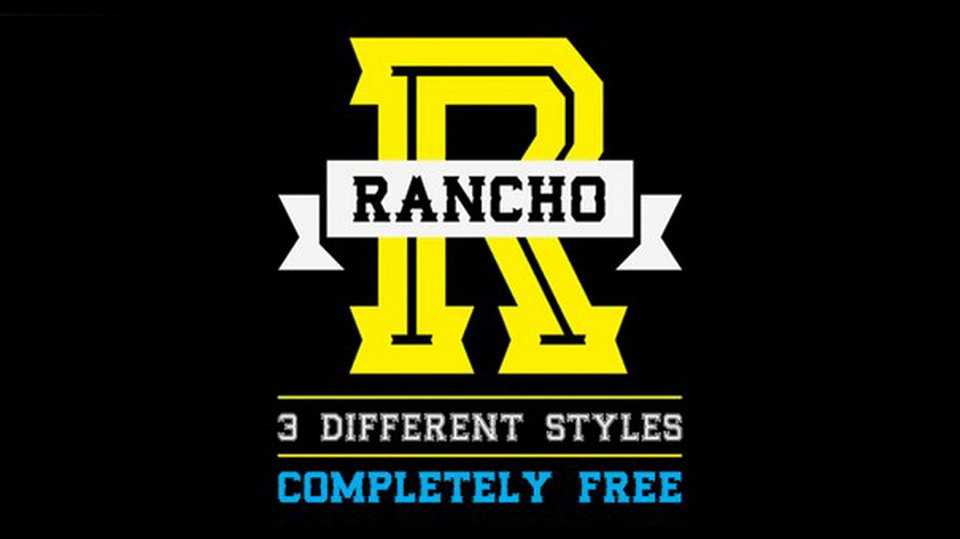
Download Rancho font, an old western style typeface with three unique styles. Rancho works best for posters and flyers, also great for branding, packaging, apparel and more.
Designer: NACH OH! Studio